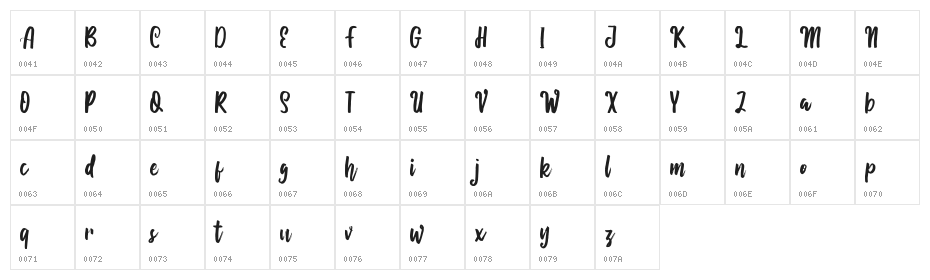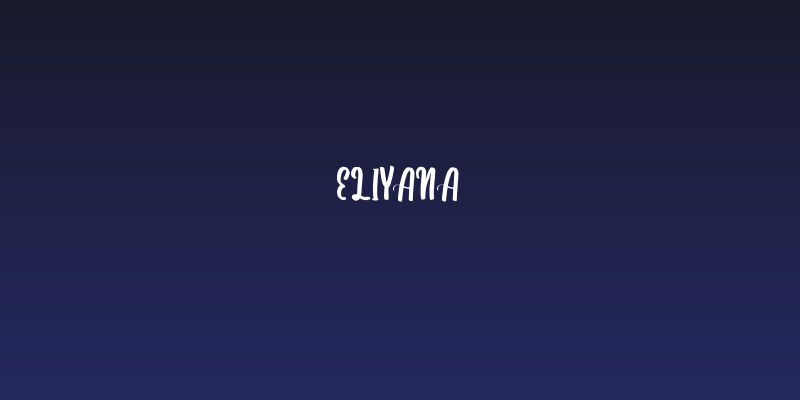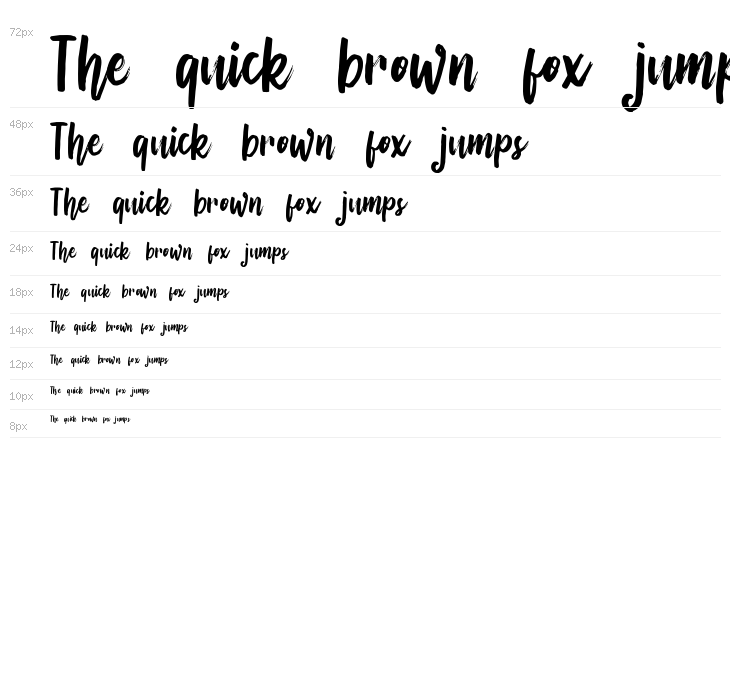
Eliyana Font
Eliyana Description
This font features a bold, brush-like style with a handwritten appearance. The uppercase letters are tall and slightly condensed, giving a strong and impactful look. The lowercase letters maintain a consistent flow, with some characters having unique, playful swashes that add to the font's charm. The strokes are thick and exhibit a medium contrast, with some variation in width that enhances the dynamic and lively feel. The overall style is modern and artistic, making it suitable for creative and expressive designs. The font's character spacing is normal, ensuring readability while maintaining its decorative appeal.
| Proposed Projects | Ideal for branding, packaging, posters, and social media graphics where a bold, artistic touch is desired. |